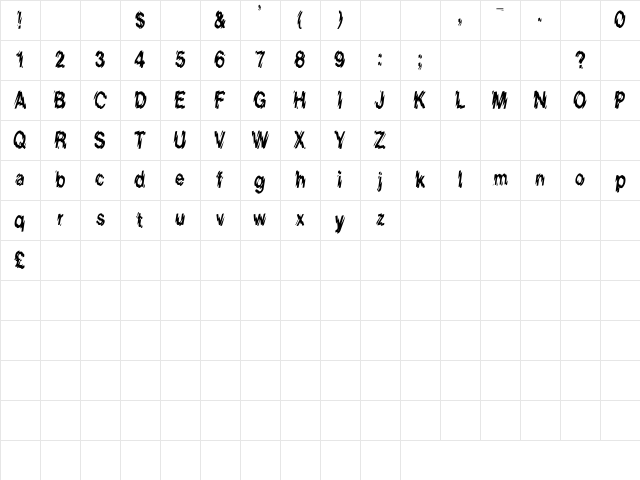
LowerWestSide Cn Regular
LowerWestSide Cn Family
Design Context for LowerWestSide Cn
LowerWestSide Cn is a composed and adaptable typeface that performs quietly and consistently across a wide range of design contexts.